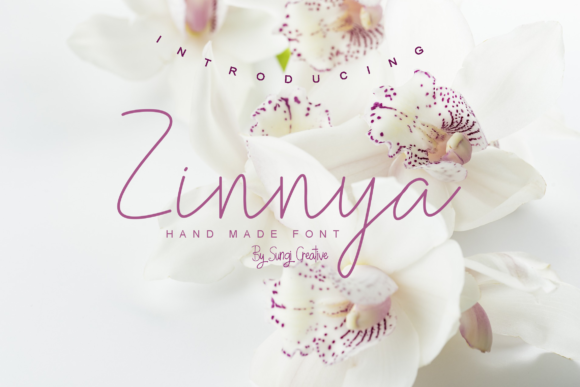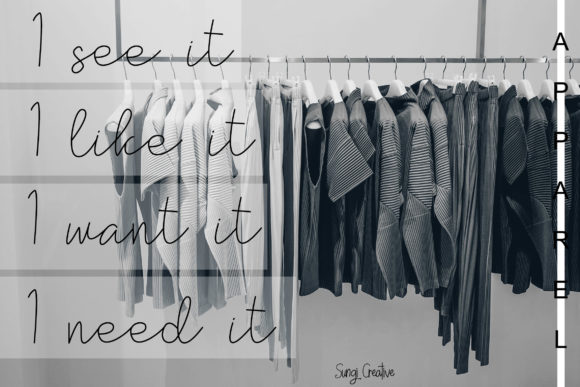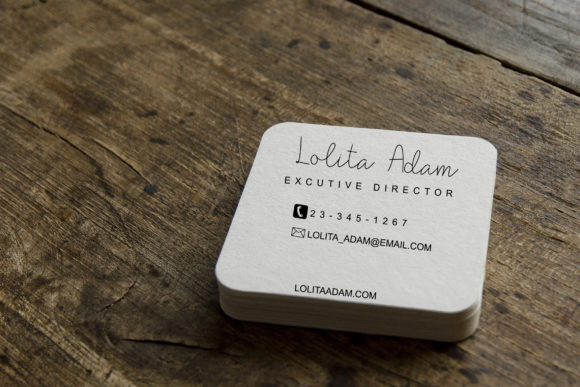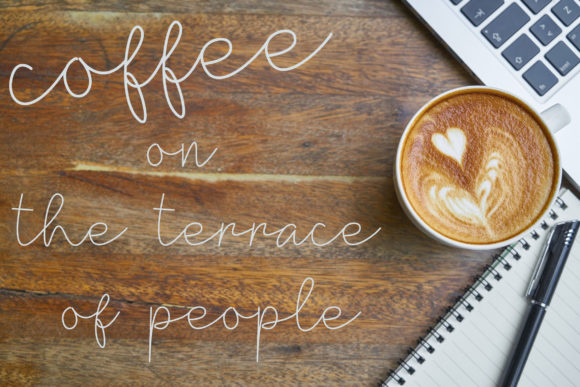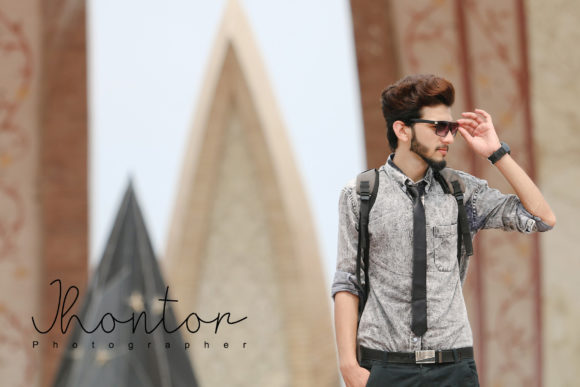
Zinnya Font
About Zinnya Font
Zinnya is a handwritten script font. It’s perfect for branding projects, logos, wedding designs, social media posts, advertisements, product packaging and other projects that require handwriting tastes.